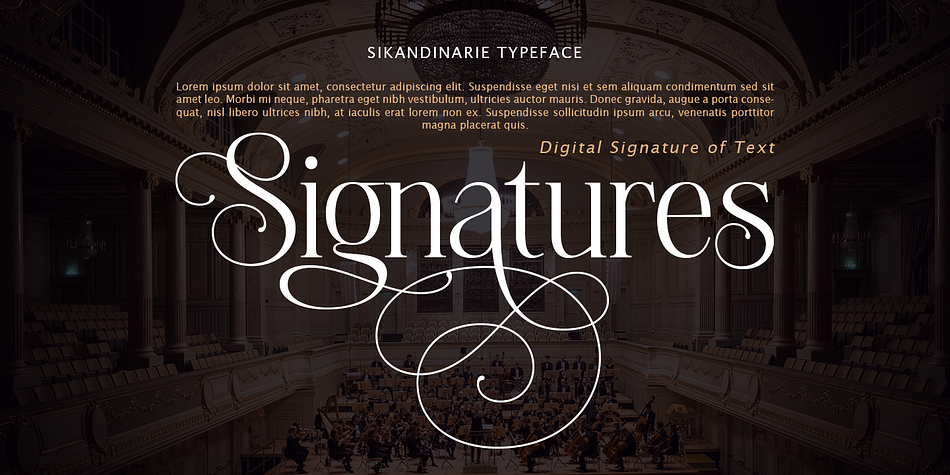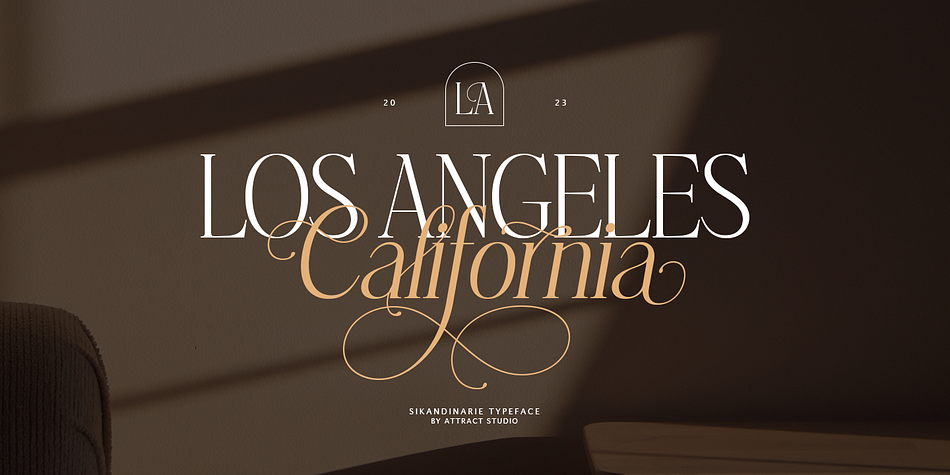
Sikandinarie
Sikandinarie is a display serif font family. This typeface has two styles and was published by Attract Studio.
Sikandinarie is a clean and neat serif font combined with swirl strokes to make this font unique yet elegant. This typeface has many unique alternatives that can make your designs even more interesting, making it the perfect choice for any project.